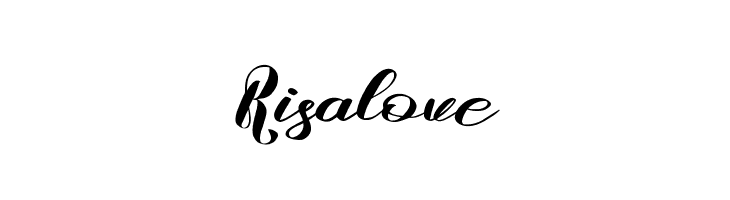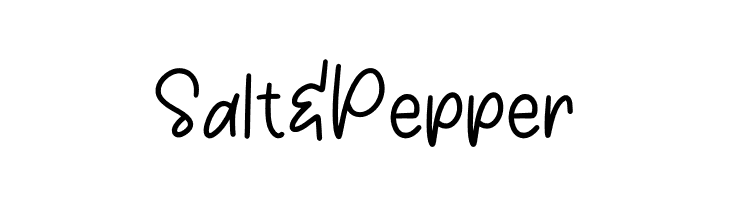
A playful, handwritten font with tall, narrow letters and a casual style.
A playful, handwritten script font with smooth curves and a whimsical style.
A playful, handwritten font with a casual and dynamic style.
A playful, casual handwritten font with smooth curves and moderate contrast.
A bold, cursive font with fluid, connected strokes and strong legibility.
A modern, elegant handwritten font with fluid, cursive strokes.
An elegant, flowing script font with ornate letterforms.
A playful, rounded font with bold, smooth curves and a casual, handwritten feel.
A classic and elegant script font with flowing, cursive letterforms.